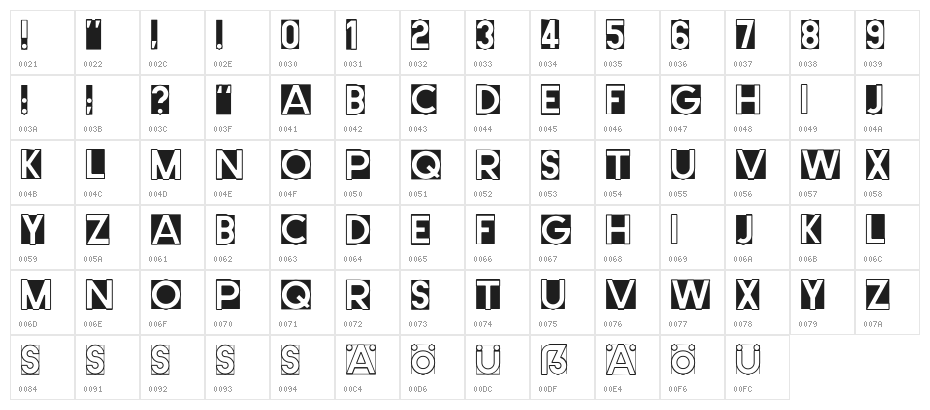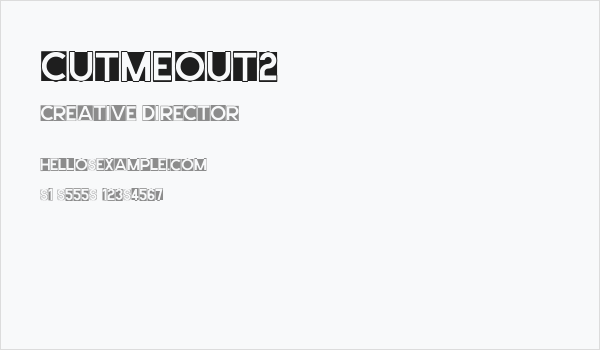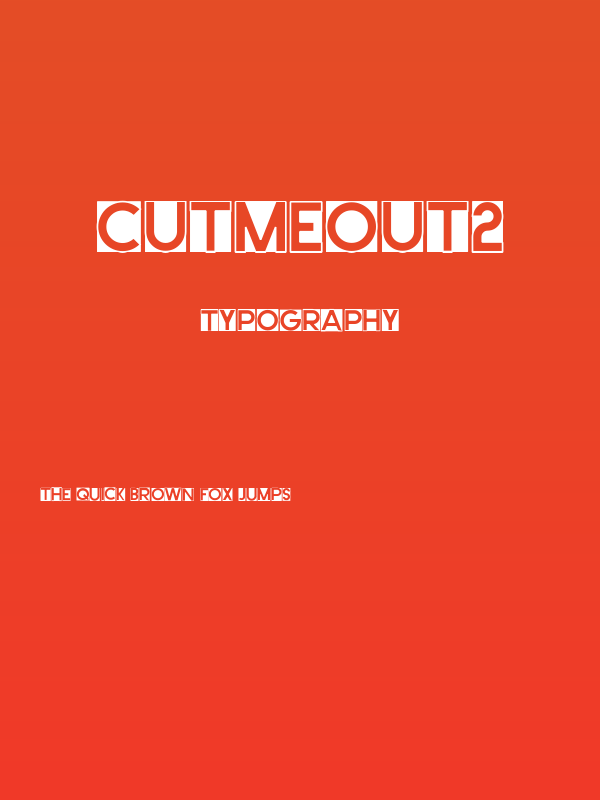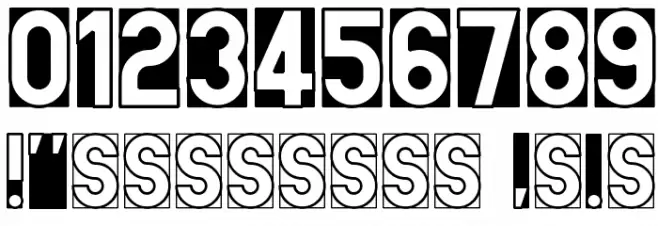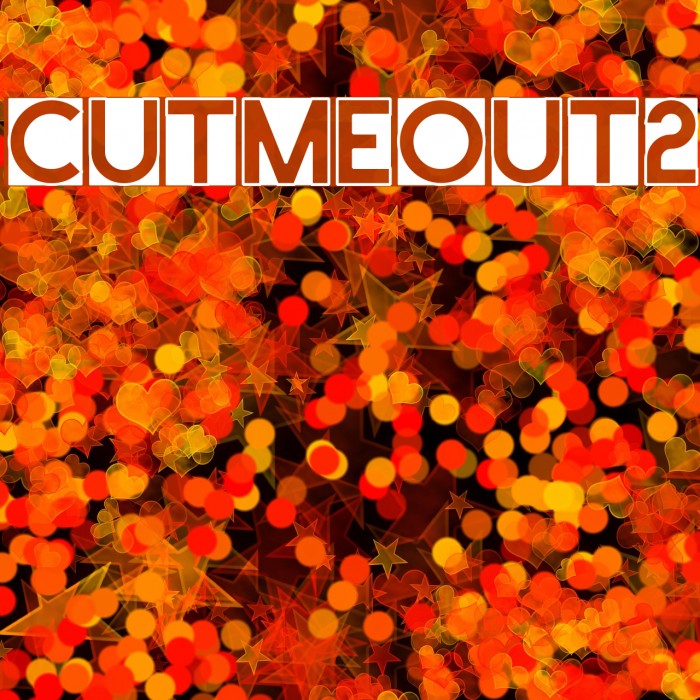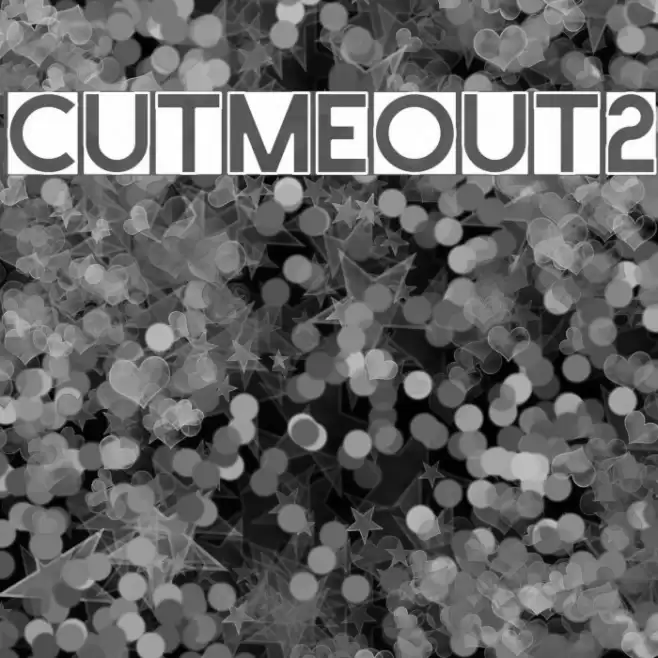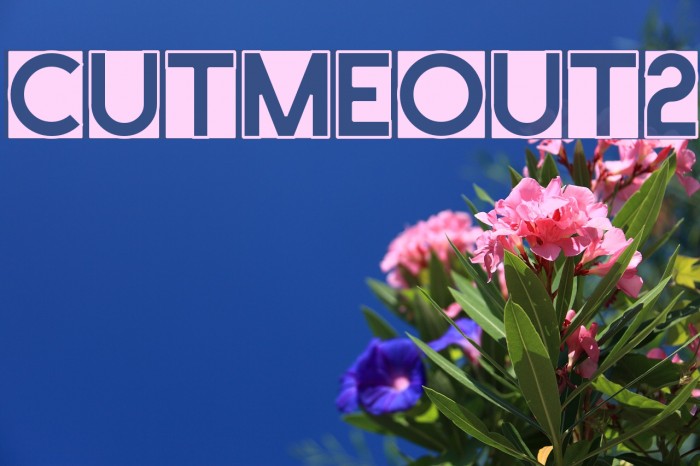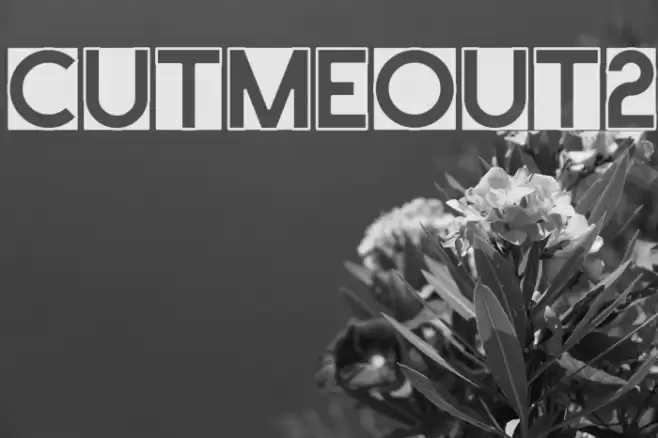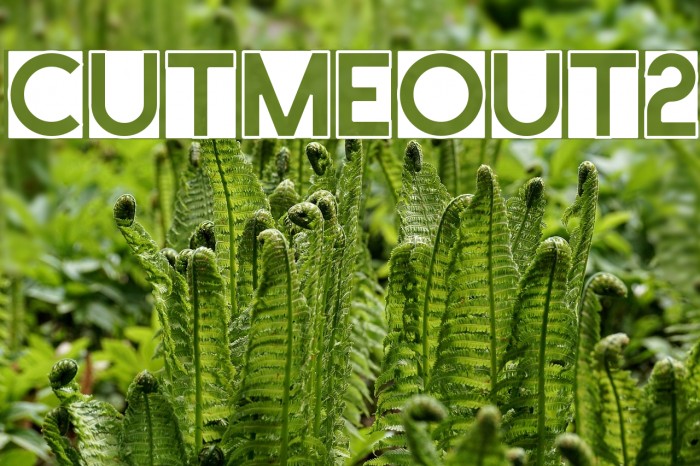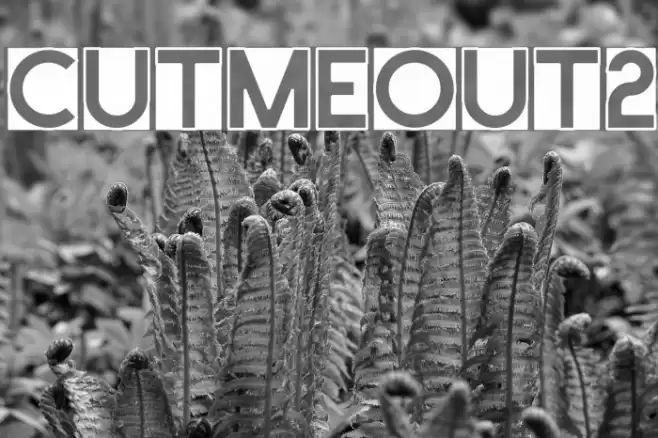
CutMeOut2 Font
CutMeOut2 Description
This font features a bold, geometric design with a strong emphasis on negative space. Each character is enclosed within a square, creating a striking visual effect that is both modern and eye-catching. The uppercase letters are uniform in height and width, contributing to a cohesive and structured appearance. The numbers follow the same design principles, maintaining consistency across the character set. The special characters are integrated seamlessly, enhancing the font's versatility. This font's unique style makes it ideal for creative projects that require a bold statement.
| Proposed Projects | Ideal for posters, logos, branding, and any design that requires a bold, modern aesthetic. |